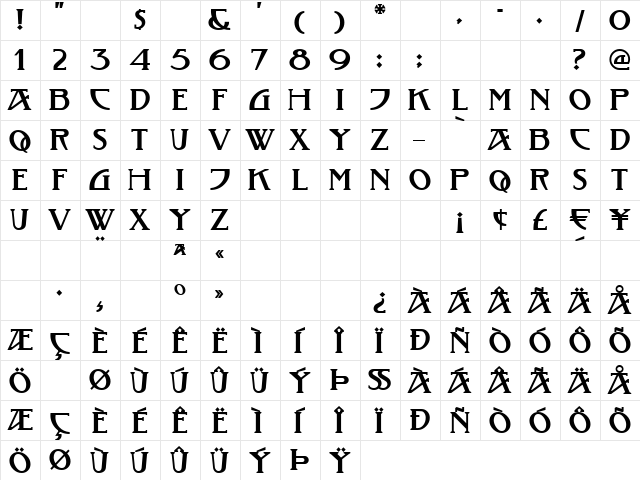
TobaccoRoadNF Regular
Design Context for TobaccoRoadNF Typeface
TobaccoRoadNF is a composed and adaptable typeface that performs quietly and consistently across a wide range of design contexts.